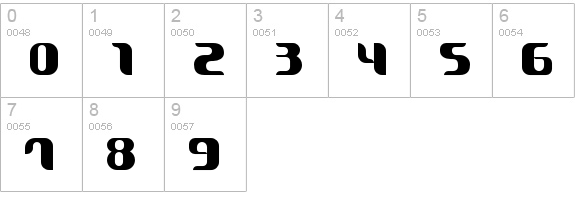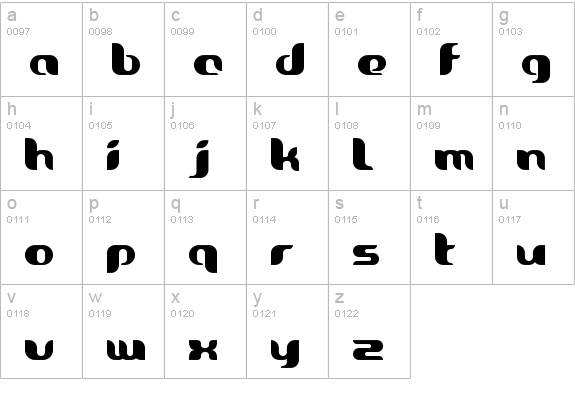
Oriole-Regular is the standard, neutral variant in the Oriole typeface family \xE2\x80\x94 well suited to general body text, paragraphs, and standard typographic work.
Oriole-Regular is a modern and elegant font that exudes sophistication and style. With its clean lines and sleek design, this typeface is perfect for a wide range of design projects, from branding to web design to print materials. Oriole-Regular is versatile and easy to read, making it a great choice for both headlines and body text. The best part? Oriole-Regular is completely free to download at FontsMarket.com. Whether you're a seasoned designer looking for a new favorite font or just starting out and building your font collection, Oriole-Regular is a must-have addition. Don't miss out on the opportunity to elevate your designs with this beautiful and versatile font - download Oriole-Regular today and start creating stunning visuals that stand out from the crowd.